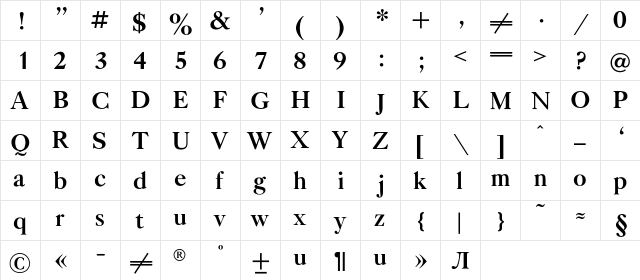
GazetaTitulC Bold
Design Context for GazetaTitulC Typeface
GazetaTitulC offers clean, dependable letterforms without strong stylistic allegiance, making it a practical choice for designers who need flexibility. The heavy weight commands attention and anchors typographic hierarchies.